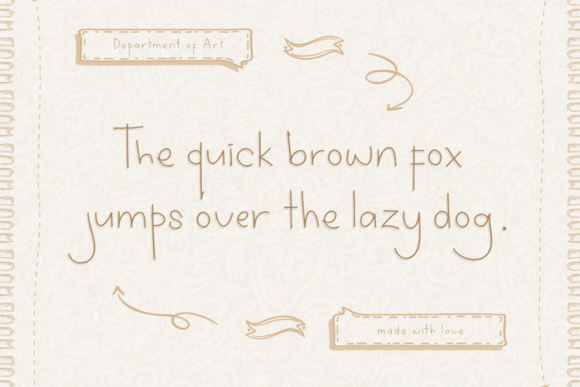
Introducing Department of Art Font: A Modern and Feminine Handwritten Font
In the world of typography, fonts play a crucial role in conveying the tone and aesthetic of a design. For those seeking a beautiful and refreshing look, the Department of Art font is an excellent choice. This modern and feminine handwritten font has been carefully crafted to add a touch of elegance and sophistication to any design.
What is Department of Art Font?
Department of Art is a modern and feminine handwritten font, designed to provide a unique and captivating look to various designs. The font’s creator aimed to develop a typeface that would be perfect for those who need a beautiful and refreshing aesthetic. With its elegant strokes and refined lines, Department of Art font has become an excellent option for designers seeking a high-end look.
Key Features of Department of Art Font
The Department of Art font boasts several key features that make it an attractive choice for designers:
- Modern and Feminine Design: The font’s modern and feminine design makes it perfect for projects that require a touch of elegance and sophistication.
- Handwritten Style: The handwritten style of the font gives it a personal and unique feel, making it ideal for designs that require a human touch.
- Beautiful and Refreshing Look: The font’s beautiful and refreshing look makes it perfect for designs that require a captivating aesthetic.
- Elegant Strokes and Refined Lines: The font’s elegant strokes and refined lines provide a high-end look that is sure to impress.
Use Cases for Department of Art Font
The Department of Art font is versatile and can be used in various design projects, including:
- Branding and Logo Design: The font’s elegant and sophisticated design makes it perfect for branding and logo design projects.
- Wedding and Event Design: The font’s beautiful and refreshing look makes it ideal for wedding and event design projects.
- Packaging Design: The font’s modern and feminine design makes it perfect for packaging design projects that require a touch of elegance.
- Digital Design: The font’s legibility and readability make it suitable for digital design projects, such as website design and social media graphics.
Benefits of Using Department of Art Font
Using the Department of Art font in your design projects offers several benefits:
- Unique and Captivating Look: The font’s unique and captivating look is sure to grab the attention of your audience.
- Elegance and Sophistication: The font’s elegant and sophisticated design adds a touch of refinement to any design.
- Versatility: The font’s versatility makes it suitable for various design projects.
- Easy to Read: The font’s legibility and readability make it easy to read, even at small sizes.
Tips for Using Department of Art Font
To get the most out of the Department of Art font, follow these tips:
- Use it for Headings and Titles: The font’s elegant and sophisticated design makes it perfect for headings and titles.
- Pair it with a Sans-Serif Font: Pairing the Department of Art font with a sans-serif font creates a beautiful contrast and adds visual interest to your design.
- Experiment with Colors and Textures: Experimenting with different colors and textures can help you create a unique and captivating look.
- Use it for Digital and Print Designs: The font’s legibility and readability make it suitable for both digital and print designs.
In conclusion, the Department of Art font is a modern and feminine handwritten font that offers a beautiful and refreshing look to various designs. Its elegant strokes and refined lines provide a high-end aesthetic that is sure to impress. With its versatility and ease of use, the Department of Art font is an excellent choice for designers seeking to add a touch of elegance and sophistication to their designs.